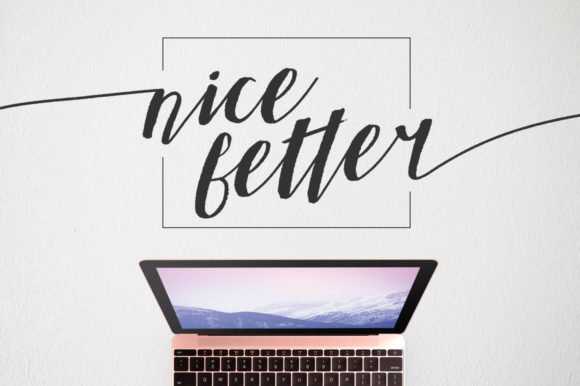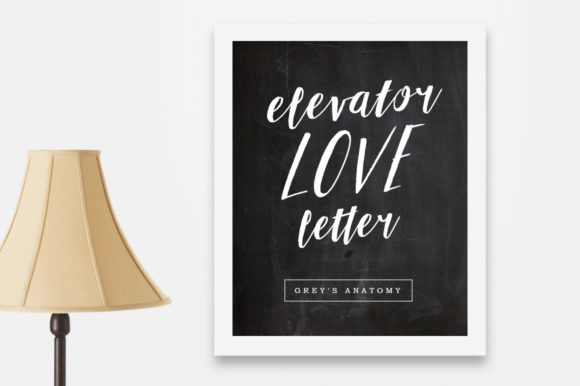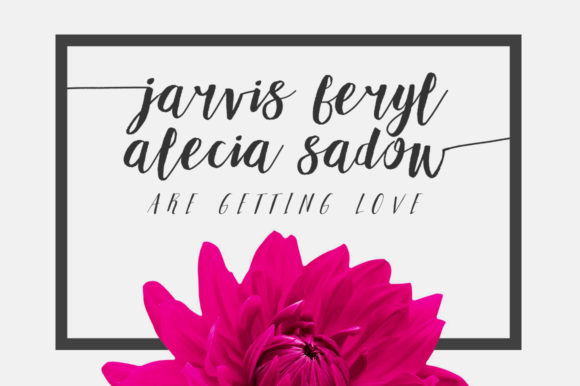
About Adellove Font
Adellove is a stunning handwritten font that captures the essence of an authentic brush script. With its natural and organic feel, Adellove brings a touch of warmth and personality to your designs. This versatile font is a perfect fit for various projects, making it a go-to choice for a wide range of creative endeavors.
One of the standout features of Adellove is its brush-like strokes, which give the font a dynamic and lively appearance. The brush feel adds a sense of handmade craftsmanship to your designs, making them feel more personal and unique.
Adellove’s beauty lies in its versatility. Whether you’re creating stationery, a logo, typography quotes, a magazine or book cover, a website header, clothing designs, or even branding and packaging, Adellove adapts seamlessly to each context.
For stationery and logo designs, Adellove’s brush-inspired look adds a touch of creativity and originality. The font’s authentic feel conveys a sense of intimacy and connection, making it perfect for personal and heartfelt messages.
When used in typography quotes, Adellove gives your words an expressive and artistic flair. Its natural flow and brush-like strokes bring an emotional depth to your quotes, capturing the essence of each message.
In magazine or book covers, Adellove stands out as a captivating and eye-catching font. Its handmade charm makes your cover designs feel more engaging and approachable, drawing readers in with its authentic appeal.
For website headers, Adellove adds a touch of personality and warmth to your online presence. The font’s brush feel creates a sense of movement and energy, making your headers visually striking and memorable.
In clothing designs, Adellove brings a sense of style and character. Its unique brush-inspired appearance gives your apparel a trendy and artistic touch, setting your brand apart from the rest.
For branding and packaging design, Adellove’s authentic brush feel adds a touch of handcrafted charm to your products. This creates a memorable and personal connection with your customers, enhancing the overall brand experience.
Overall, Adellove is a beautiful handwritten font that excels in versatility and authenticity. Its brush-inspired appearance makes it a perfect fit for stationery, logos, typography quotes, magazine or book covers, website headers, clothing, branding, packaging, and more. With Adellove, your designs will exude creativity, warmth, and a genuine human touch.